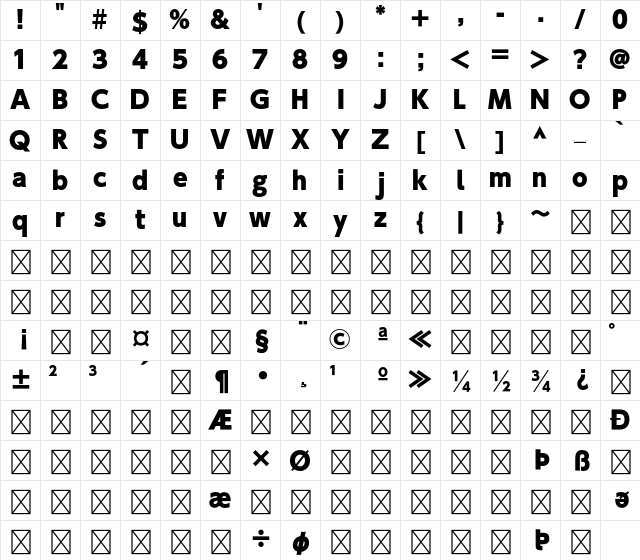
MO UDShinGo Hangul Ko2 U
Style: U
Foundry: Morisawa Inc.
Design Context for MO UDShinGo Hangul Ko2
MO UDShinGo Hangul Ko2 is a composed and adaptable typeface that performs quietly and consistently across a wide range of design contexts.
Who designed the MO UDShinGo Hangul Ko2 U font?